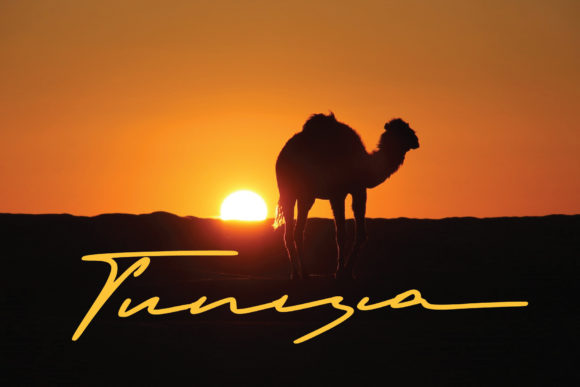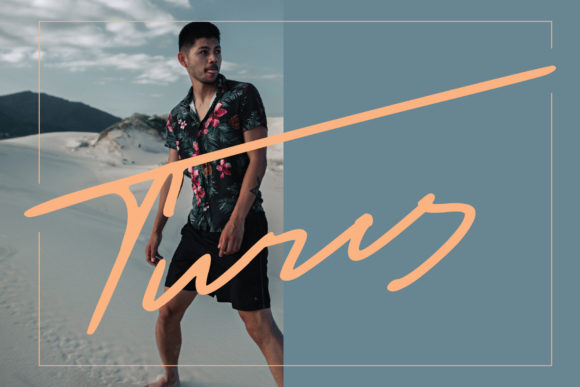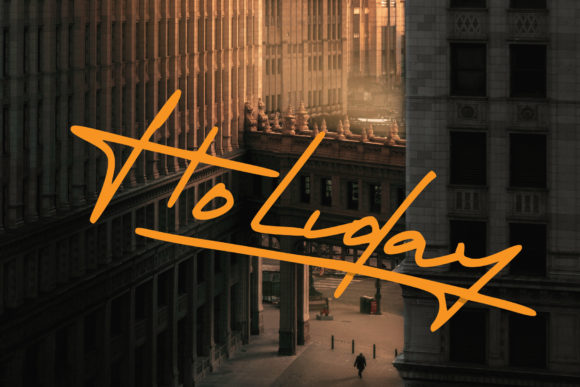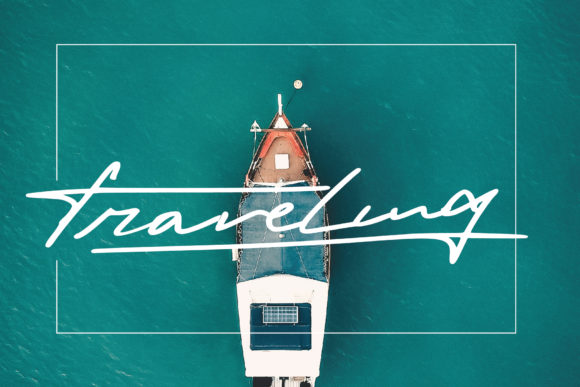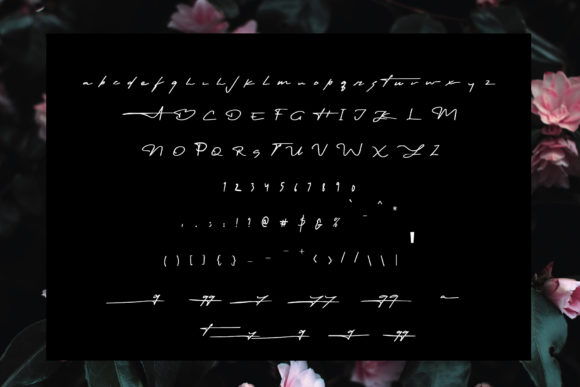
Tunisia Font
About Tunisia Font
Tunisia feels equally charming and elegant. This stunning script font is a stylish homage to classic calligraphy. It features a varying baseline, smooth lines, gorgeous glyphs and stunning alternates. It’s the perfect choice for signatures, packaging, logos and much more!